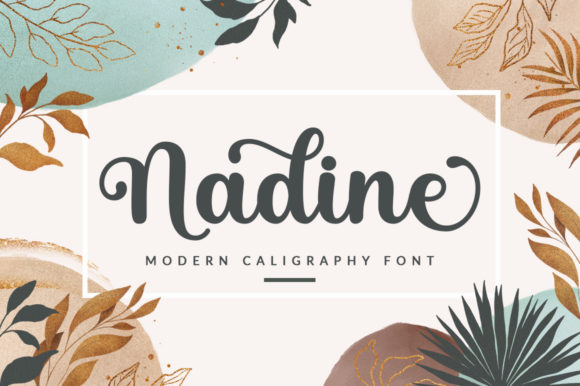
**Unleash Your Creative Genius with Nadine: The Enchanting Script Font**
Journey into the realm of elegance and fluidity, where Nadine, the captivating script font, awaits you. Nadine is not just another font; it's an artistic masterpiece that will transform your creative visions into stunning realities.
Nadine's graceful curves and well-balanced characters dance harmoniously together, creating a visual symphony that complements a myriad of designs. Picture your words taking shape, adorned with Nadine's delicate yet bold presence, captivating the hearts of your audience. Nadine is the perfect muse for your most inspired creations, ready to breathe life into your ideas.
With Nadine at your fingertips, you'll discover a new realm of design possibilities. Craft logos that exude sophistication and flair, leaving an indelible mark on the minds of your customers. Create invitations that whisper elegance and charm, inviting your guests to an unforgettable occasion. Design social media posts that captivate your followers, leaving them spellbound by your artistry.
Nadine is more than just a font; it's an expression of your individuality, a reflection of your unique style. Let Nadine's enchanting strokes carry your message to the world, leaving a trail of beauty and inspiration in its wake. Join countless designers who have embraced Nadine's magic, transforming their creative visions into masterpieces.
Nadine is the key to unlocking your creative potential, a font that will inspire you to think outside the box and push the boundaries of design. Its versatility knows no bounds, seamlessly adapting to any project you envision. Whether you're designing for print or digital, Nadine will elevate your work to new heights of excellence.
Don't let your creative aspirations remain dormant; let Nadine be your catalyst for greatness. Dive into the world of Nadine and experience the joy of creating designs that resonate with your audience, leaving them awestruck by your artistic prowess.
**Graphix Line Studio Presents Nadine: A Font That Will Ignite Your Imagination**
Graphix Line Studio, renowned for their innovative and captivating fonts, proudly introduces Nadine, a script font that will ignite your imagination and redefine your creative boundaries. Nadine is not just a font; it's a gateway to a world of infinite possibilities, where your designs will flourish and captivate.
As you explore the depths of Nadine's versatility, you'll discover a font that effortlessly adapts to any project, any style, and any vision. From elegant logos that command attention to enchanting invitations that promise unforgettable moments, Nadine will be your steadfast companion, transforming your ideas into tangible works of art.
Nadine's meticulously crafted characters possess a timeless charm, a blend of classic elegance and modern flair. Its delicate strokes and graceful curves flow seamlessly together, creating a visual symphony that dances across your designs. With Nadine as your creative ally, you'll have the power to weave words into enchanting tapestries, leaving your audience spellbound.
Don't miss this opportunity to unleash your creative potential and experience the transformative power of Nadine. Embrace Nadine today and unlock a new realm of design possibilities, where your imagination knows no bounds.